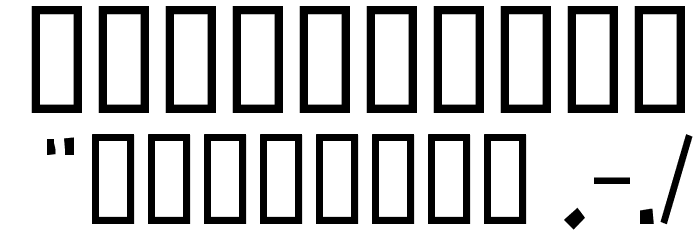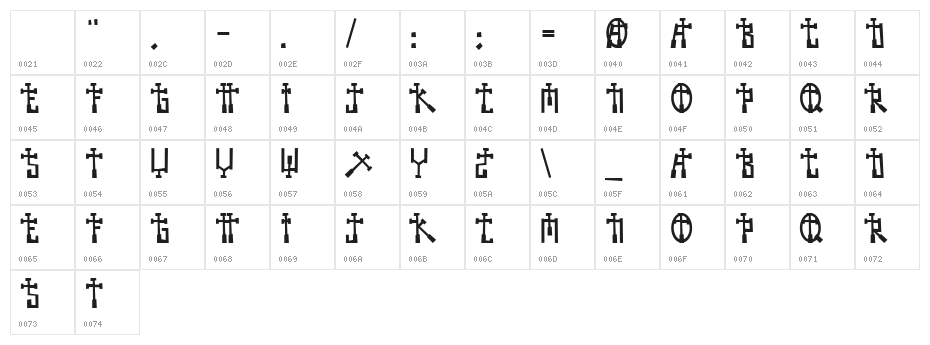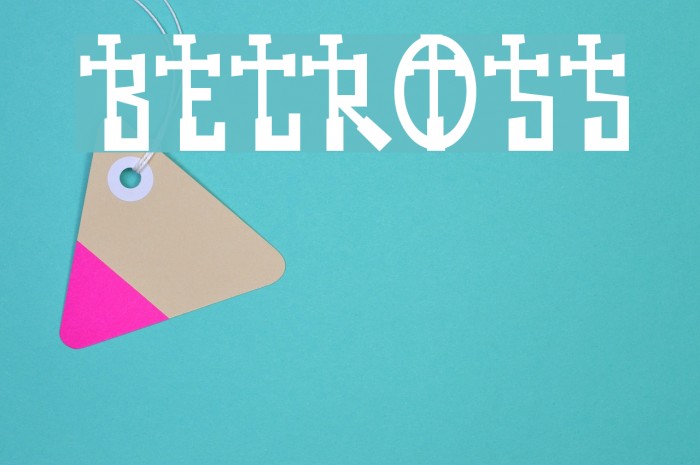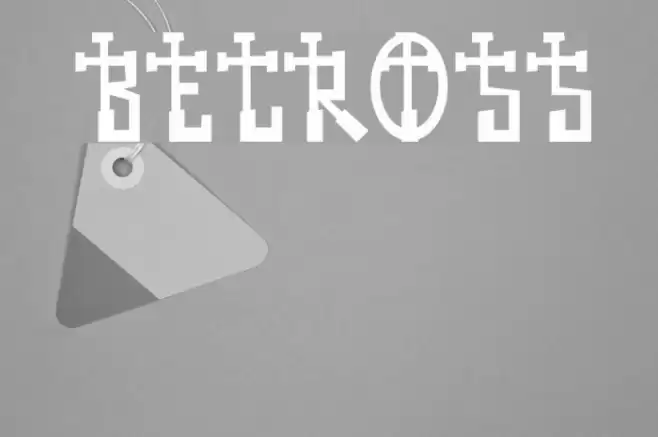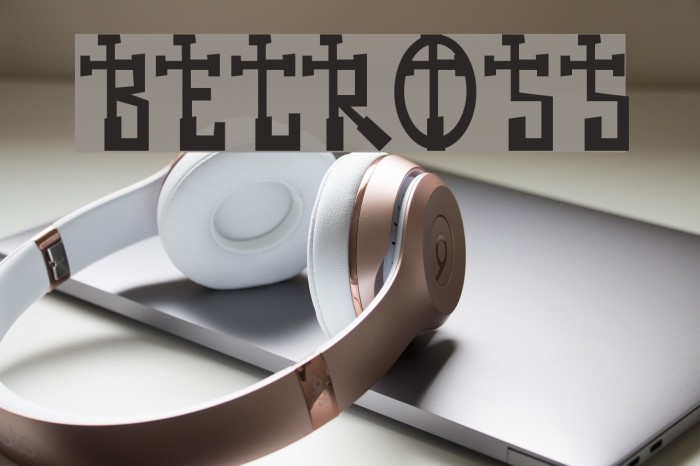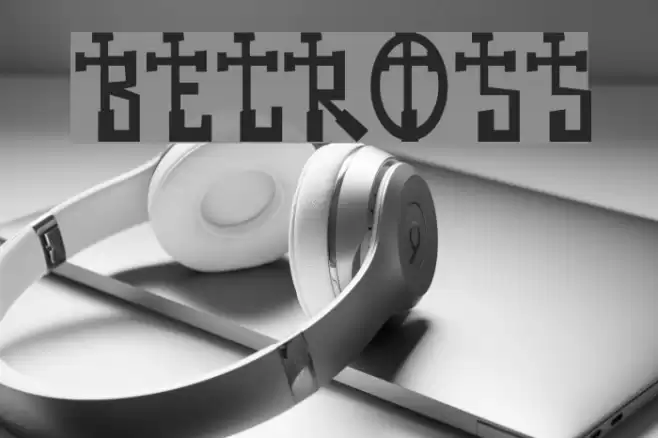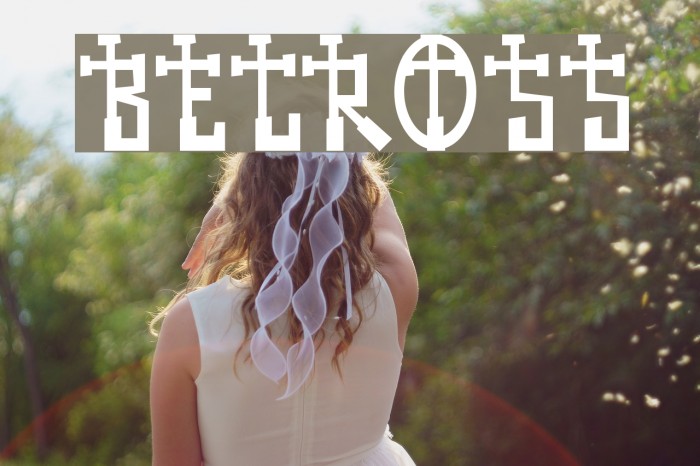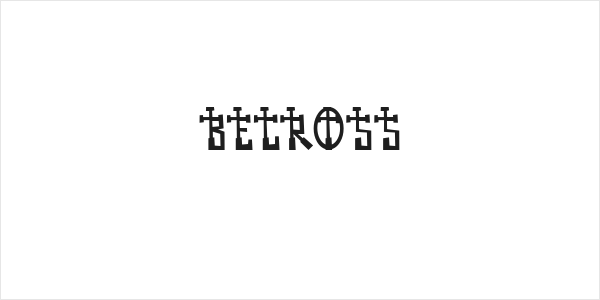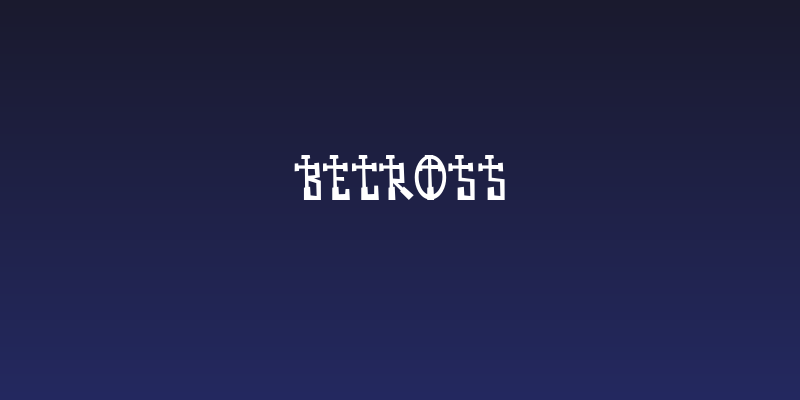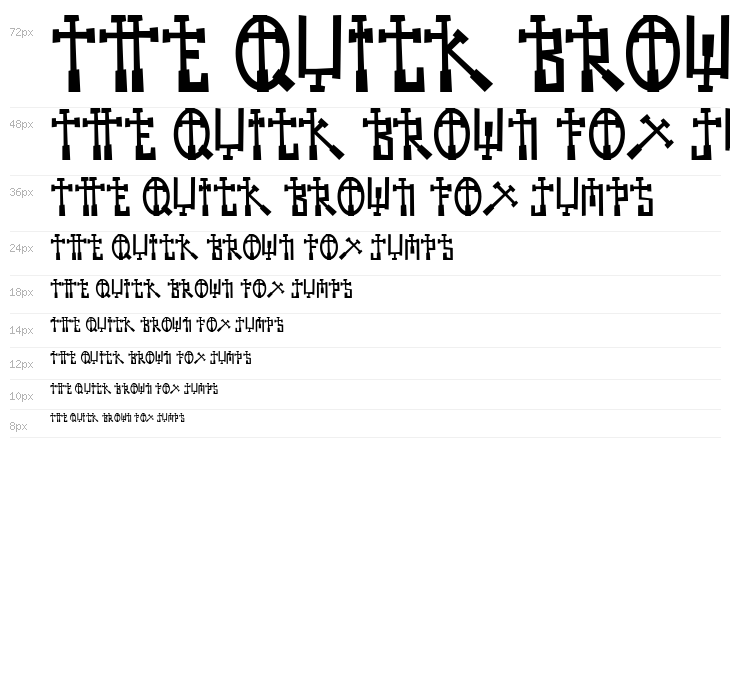
BECROSS Font
BECROSS Description
This font features a bold and striking design with a distinctly geometric and angular style. The characters are constructed with thick, uniform strokes that create a sense of strength and stability. Each letter is uniquely crafted with sharp edges and a blocky appearance, giving it a modern and industrial feel. The uppercase and lowercase letters maintain a consistent height, while the numerals and special characters follow the same design principles, ensuring a cohesive look across all text. The font's unique aesthetic makes it stand out, making it suitable for projects that require a bold and impactful visual statement.
| Proposed Projects | Ideal for branding, posters, headlines, and any design requiring a strong, modern aesthetic. |